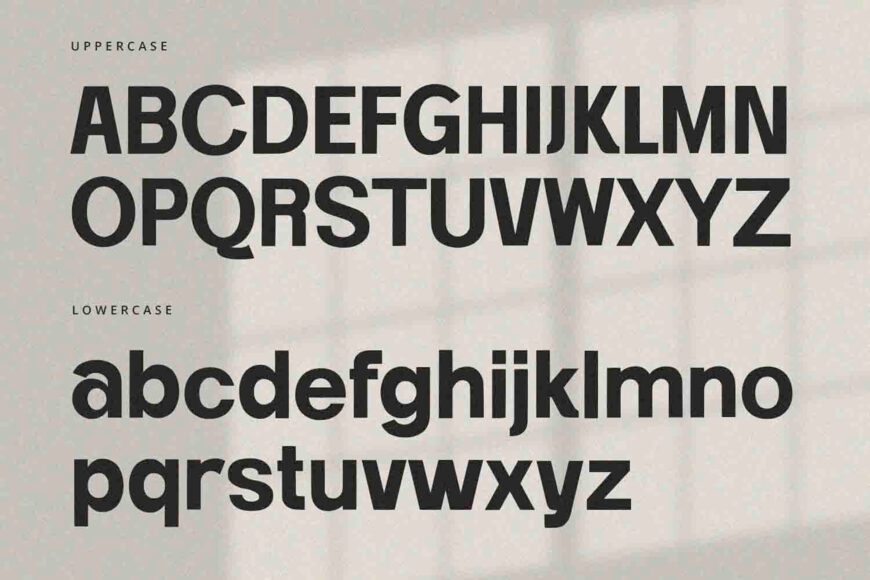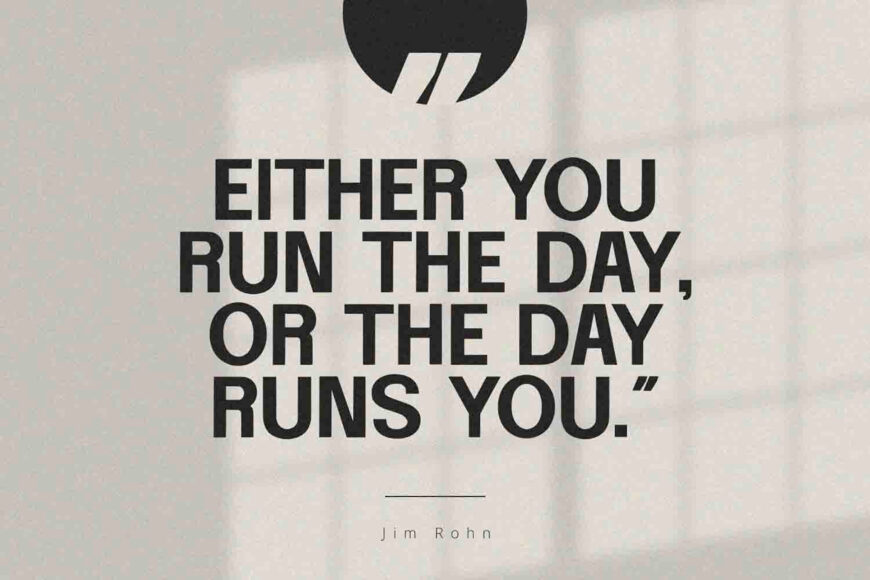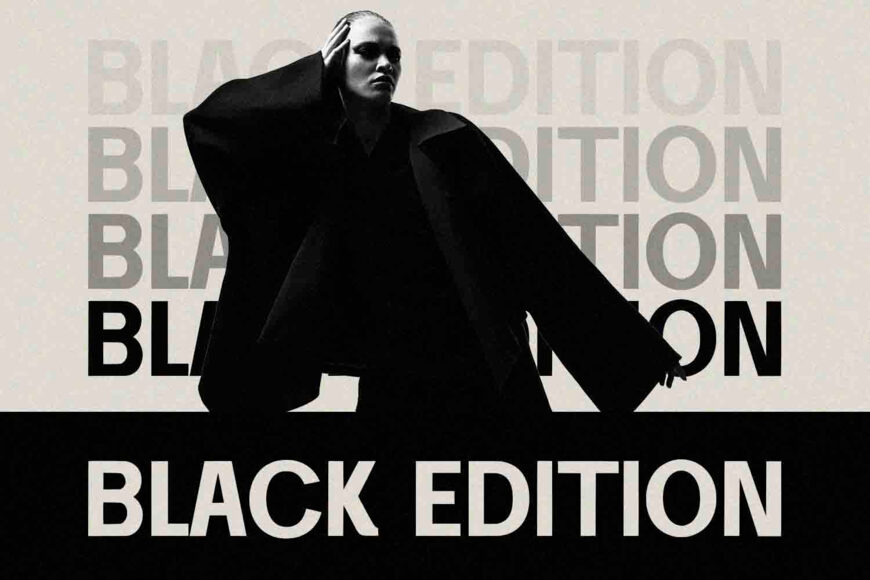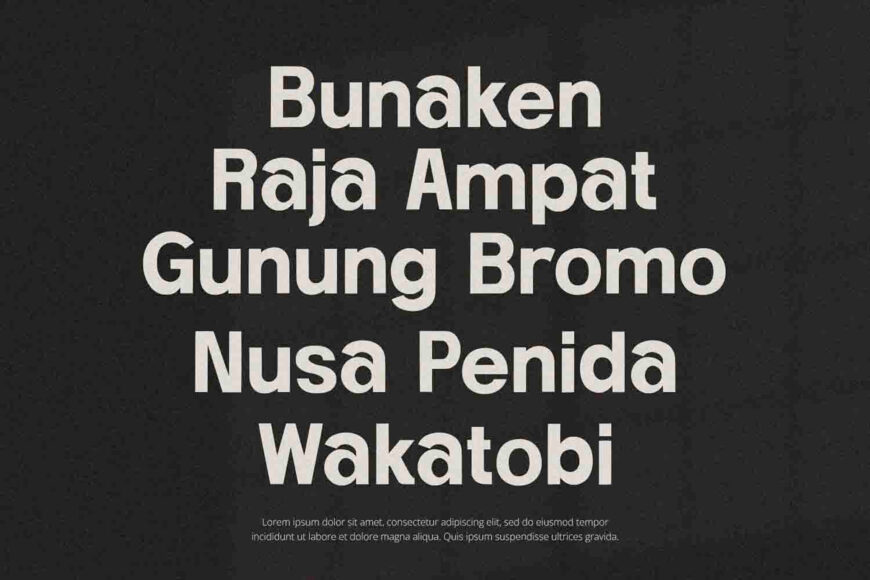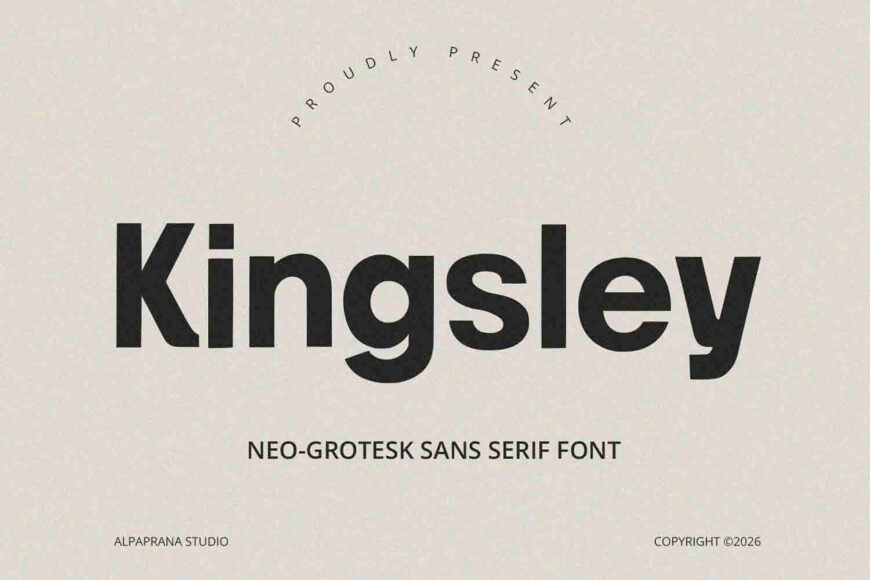
Kingsley Font
Kingsley is a modern neo-grotesk sans-serif font designed with a contemporary aesthetic. Combining clean lines with subtle sophistication, this versatile typeface is ideally suited for branding, logo design, logotypes, modern posters, magazine layouts, packaging, book covers, and stylish apparel. Offering a minimalist yet impactful visual appeal, Kingsley elevates professional creative projects with its refined, contemporary elegance.